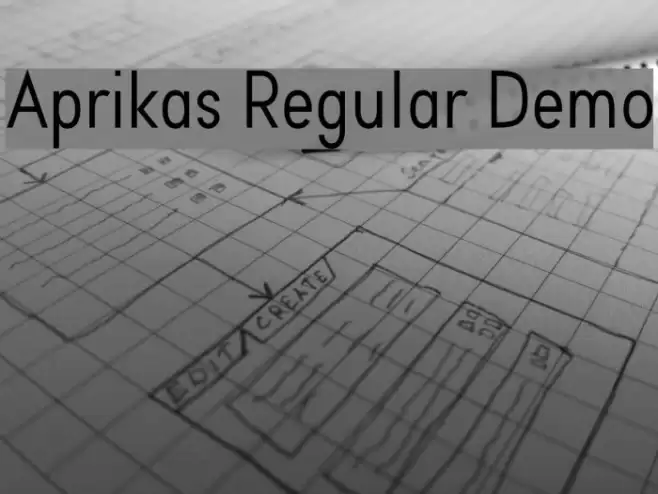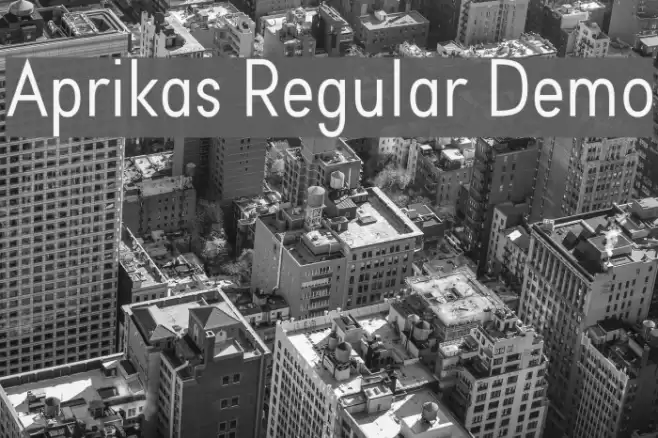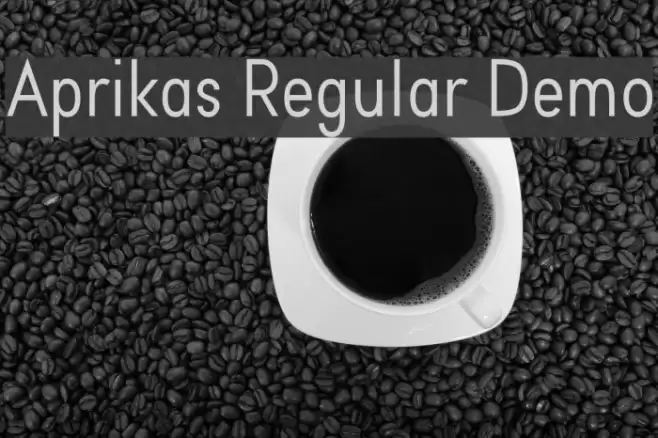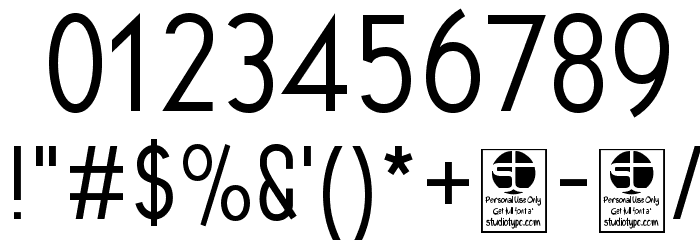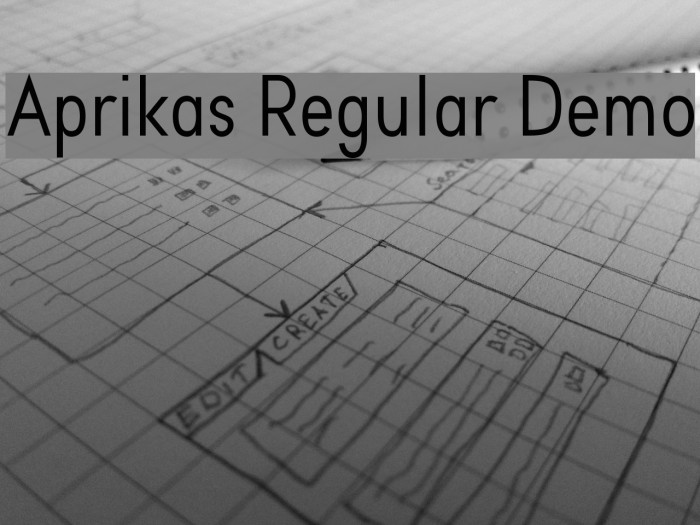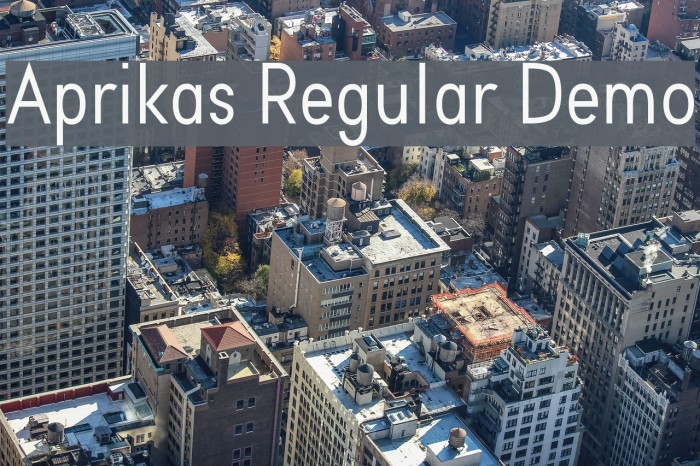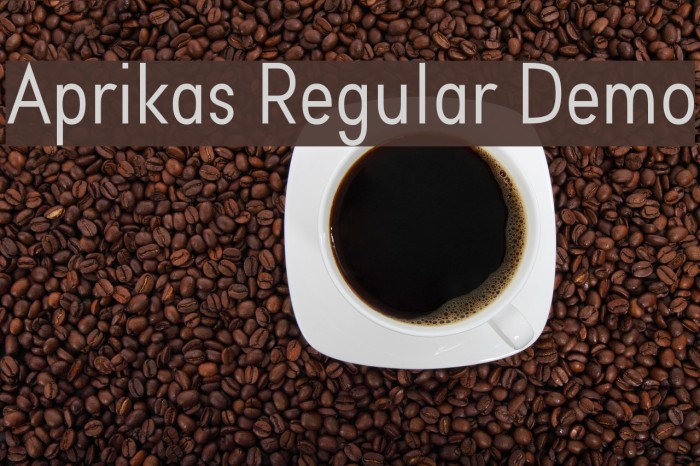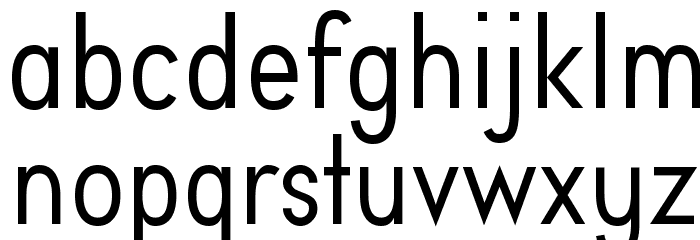
Aprikas Regular Demo Font
Aprikas Regular Demo Description
This font presents a clean and modern sans-serif style, characterized by its simplicity and readability. The letters are evenly spaced, with a consistent stroke width that gives it a uniform appearance. The uppercase letters are tall and slightly narrow, while the lowercase letters maintain a balanced proportion, enhancing legibility. The numerals are clear and distinct, making them suitable for various applications. Special characters are well-defined, adding versatility to the font. Its straightforward design makes it ideal for both digital and print media.
A clean, modern sans-serif font with uniform stroke width and excellent readability from Uncategorized fonts.